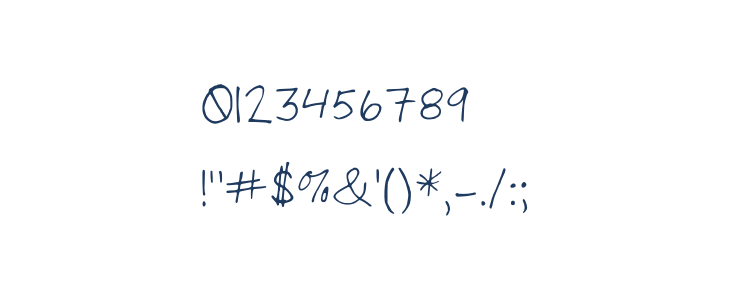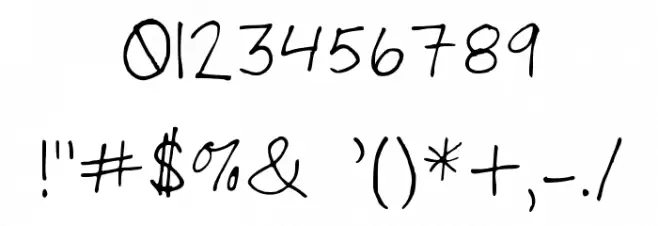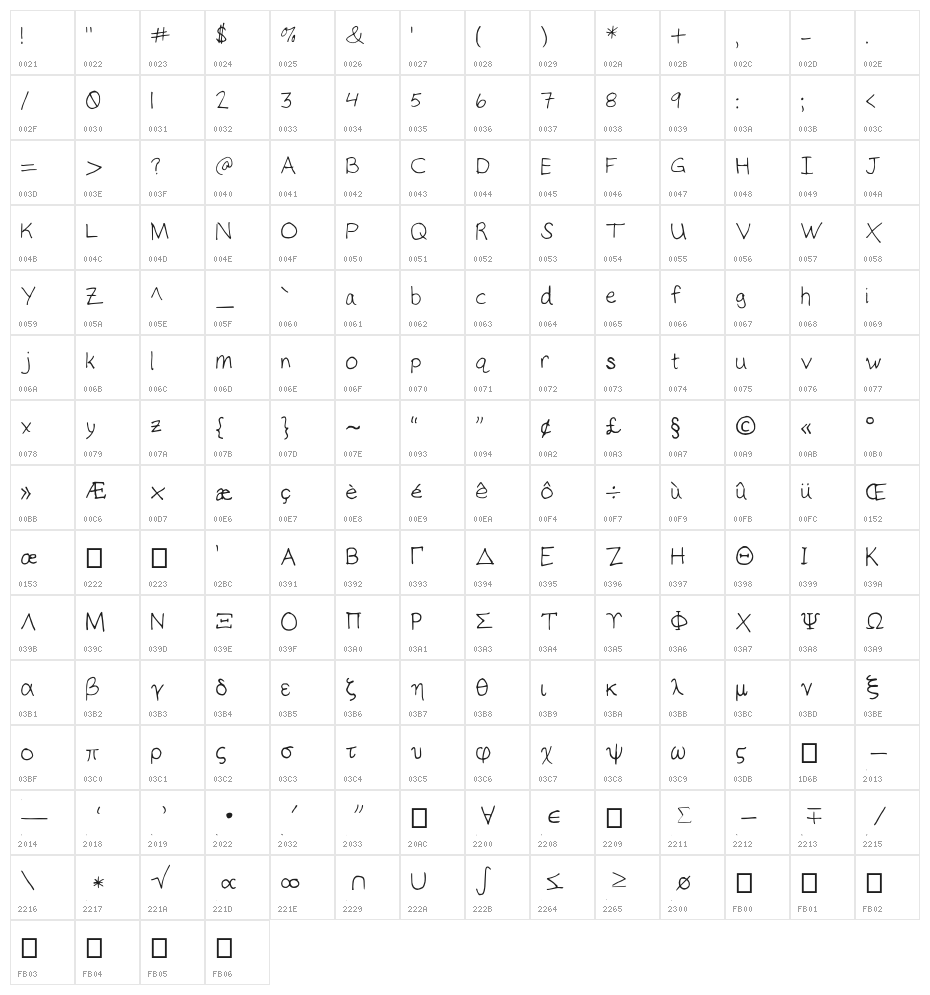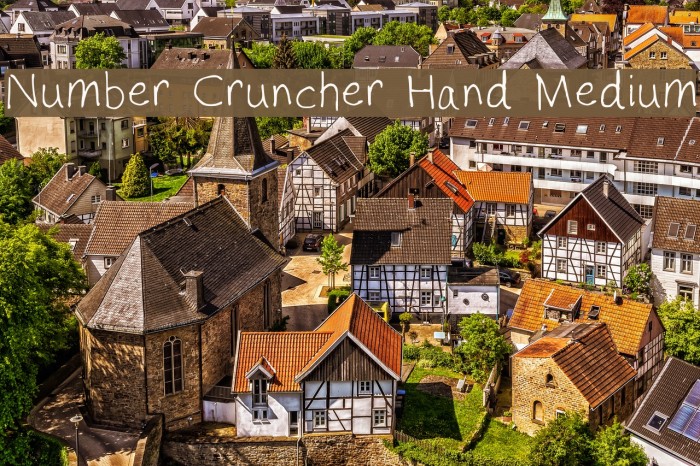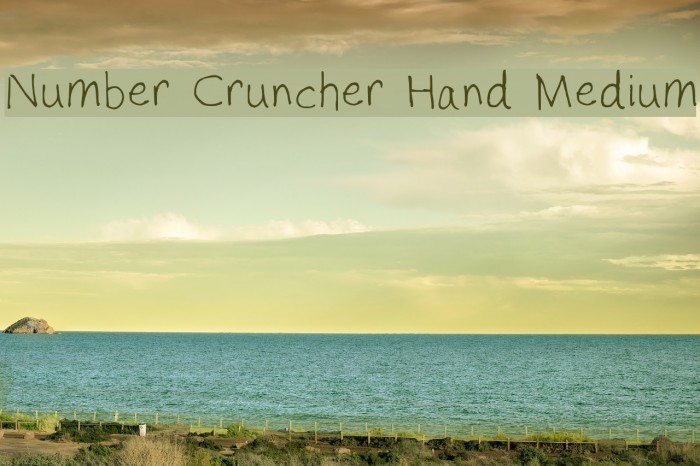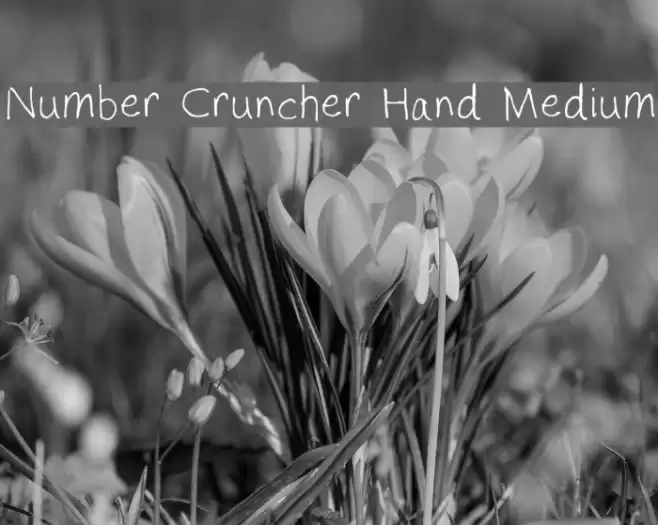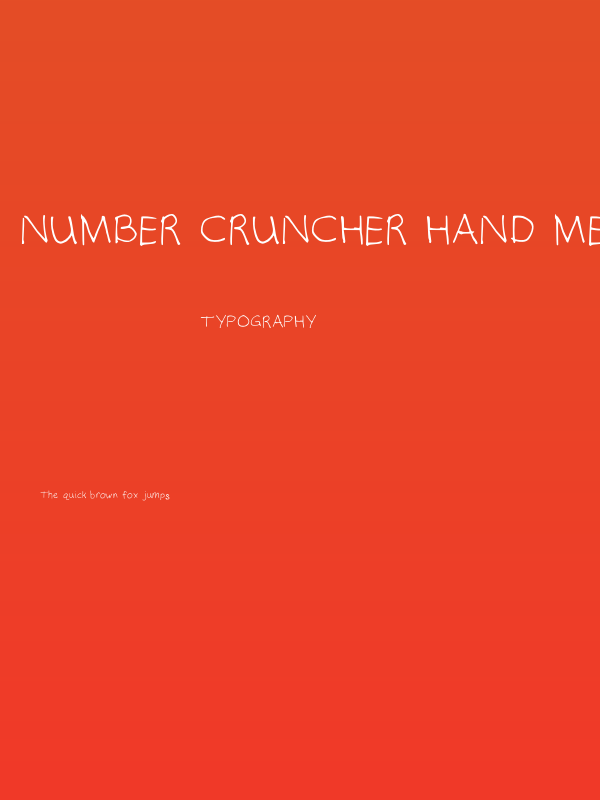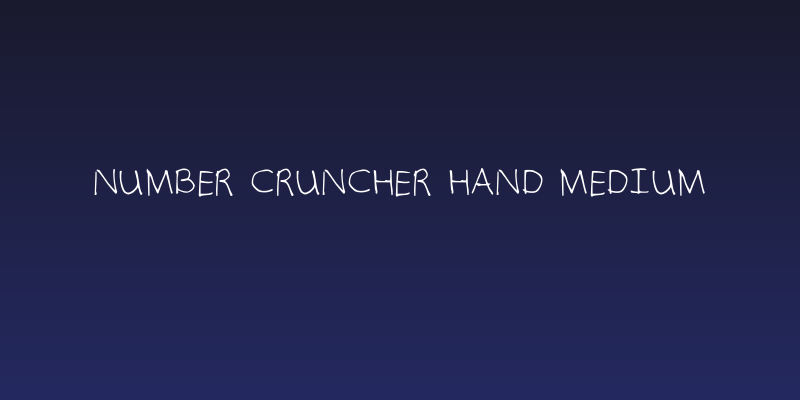
Number Cruncher Hand Medium Font
Number Cruncher Hand Medium Description
This font features a playful, handwritten style that exudes a casual and friendly vibe. The characters are slightly irregular, adding a touch of whimsy and personality. The strokes are consistent in width, giving it a uniform appearance despite its informal style. The letters have a slight tilt, enhancing the handwritten feel. The numerals and special characters maintain the same playful aesthetic, making it versatile for various uses. This font is perfect for projects that require a personal touch, such as greeting cards, invitations, or informal branding.
| Proposed Projects | Ideal for greeting cards, invitations, informal branding, and playful designs. |